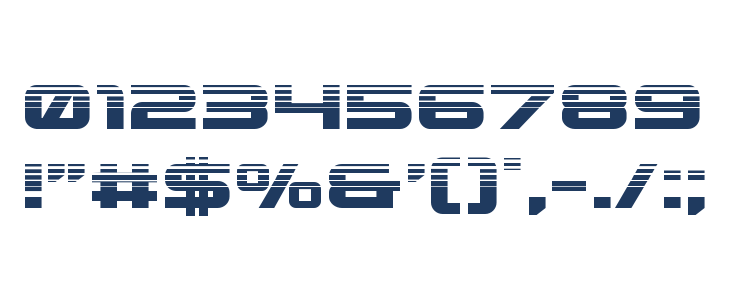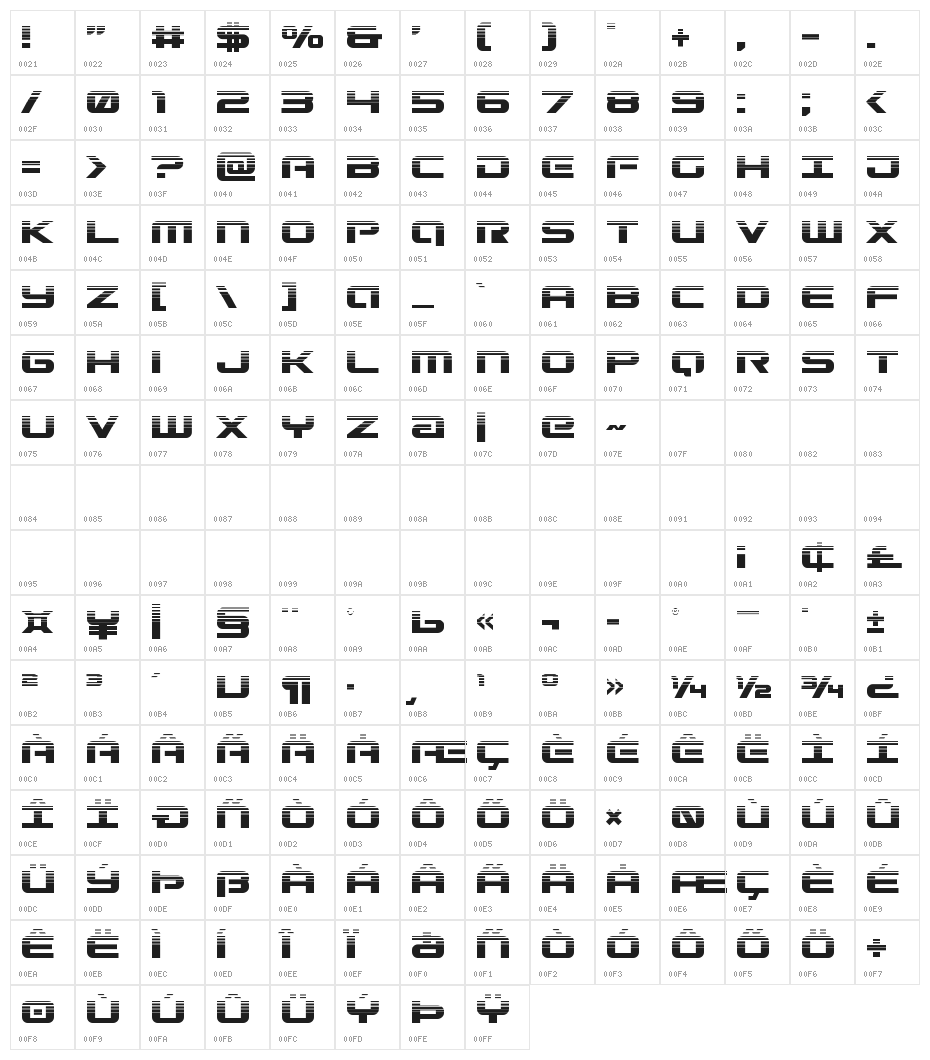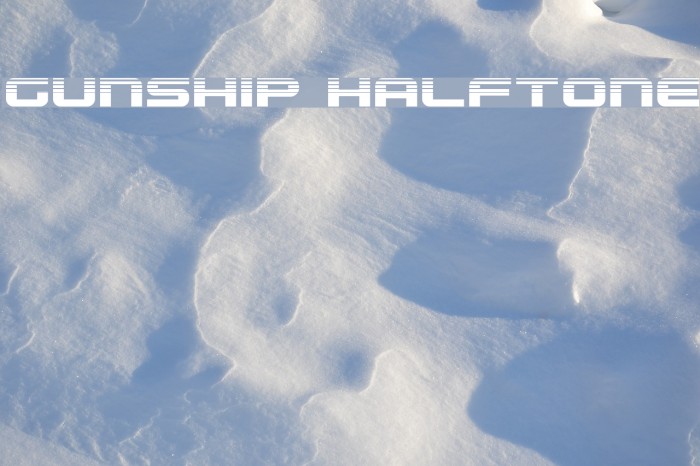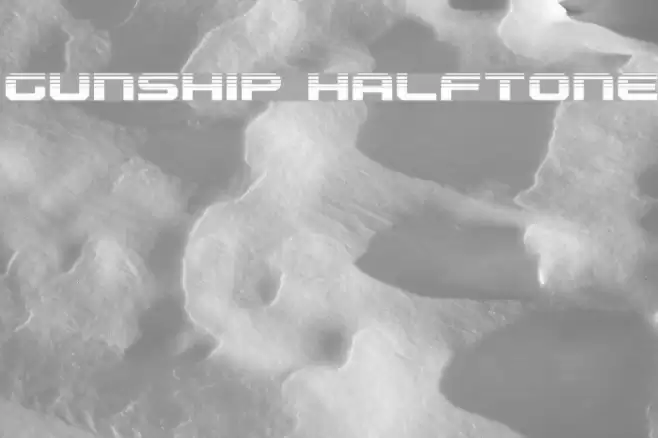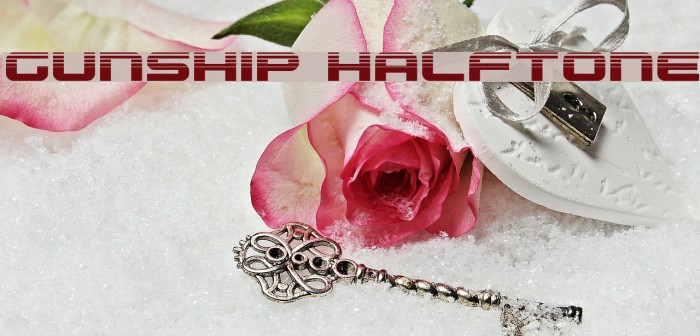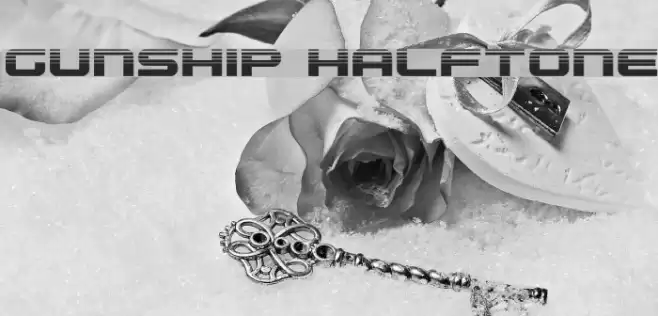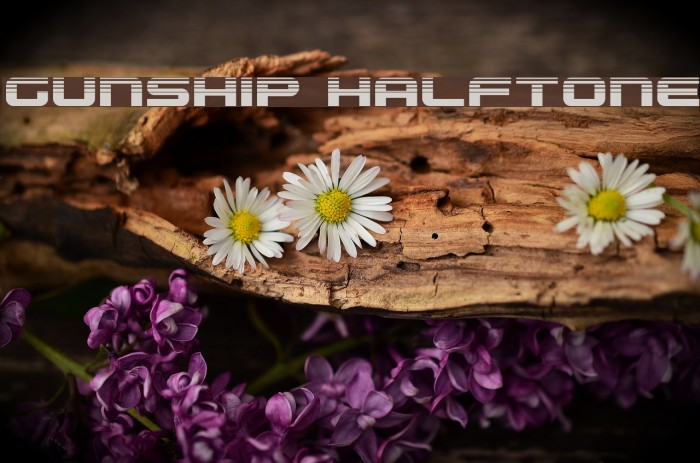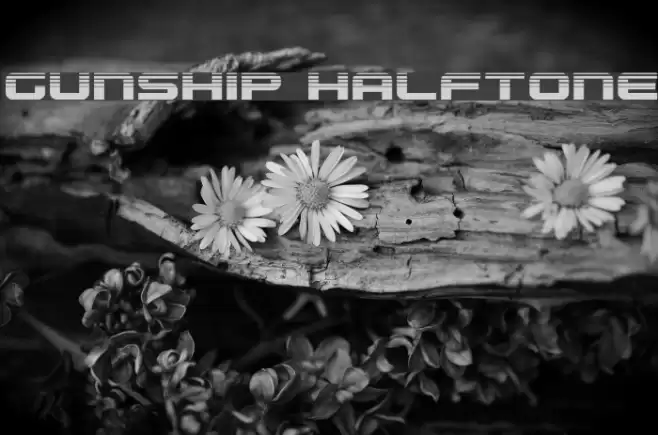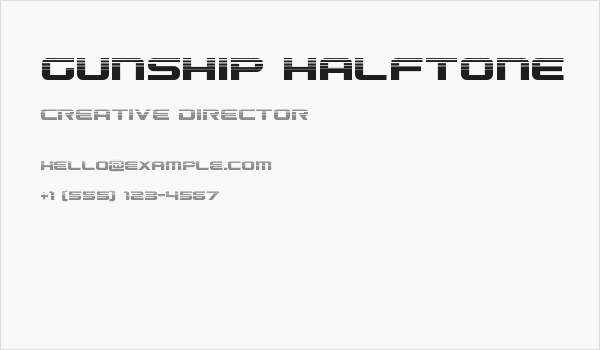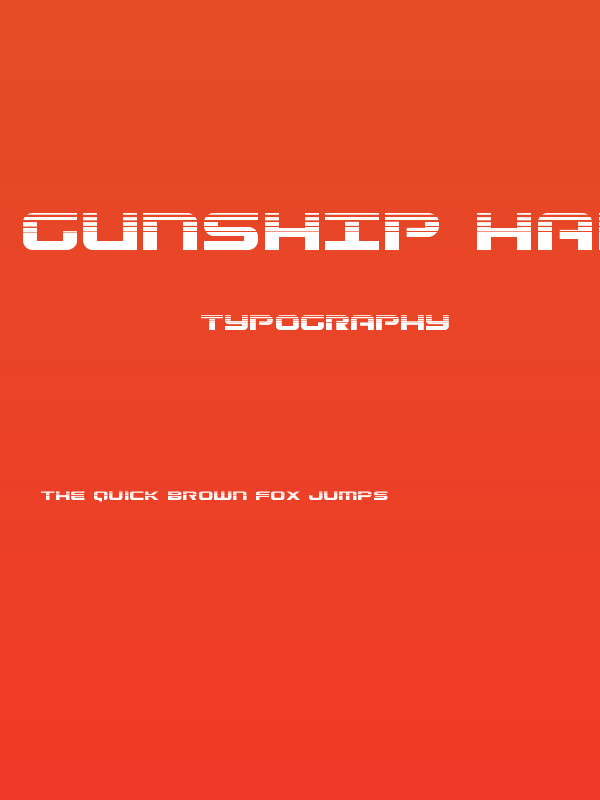
Gunship Halftone Font
Gunship Halftone Description
This font features a bold, futuristic design with a distinct halftone effect that gives it a unique, digital appearance. The characters are constructed with horizontal lines that create a sense of movement and modernity. The uppercase and lowercase letters maintain a consistent style, with sharp angles and geometric shapes that enhance its tech-inspired look. The numerals and special characters follow the same design principles, ensuring uniformity across all elements. This font is ideal for projects that require a cutting-edge, digital aesthetic.
| Proposed Projects | Ideal for video game titles, tech branding, digital media, and sci-fi themed projects. |